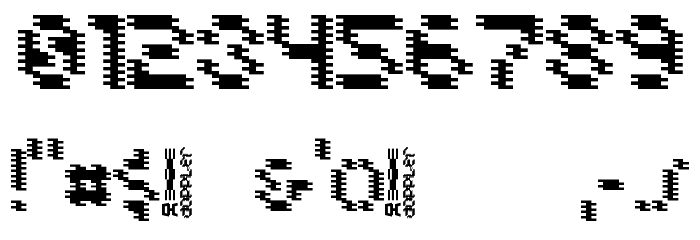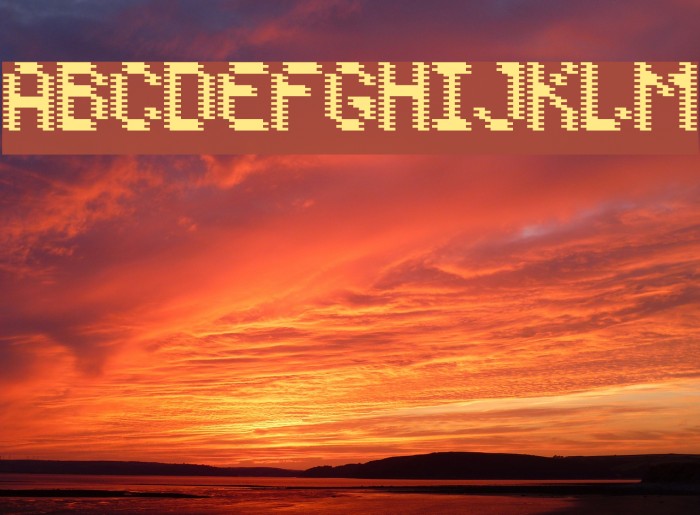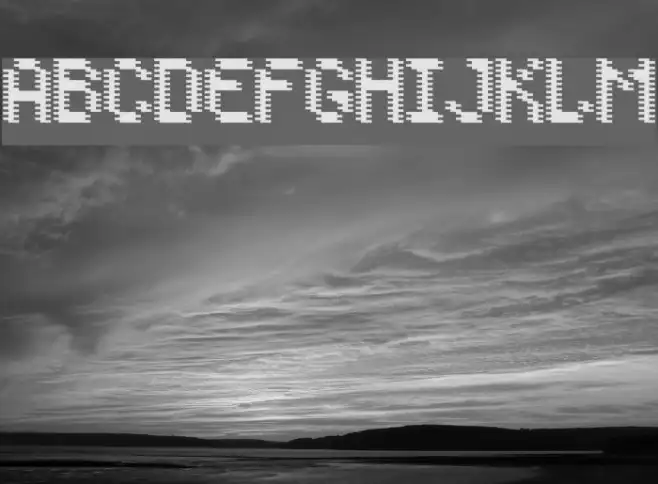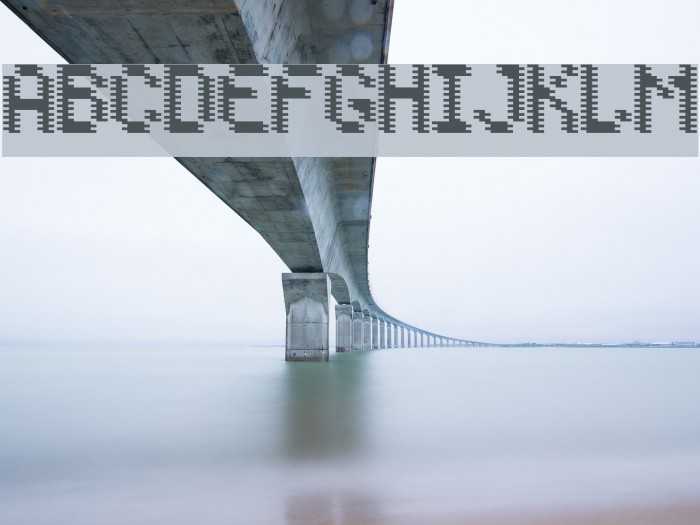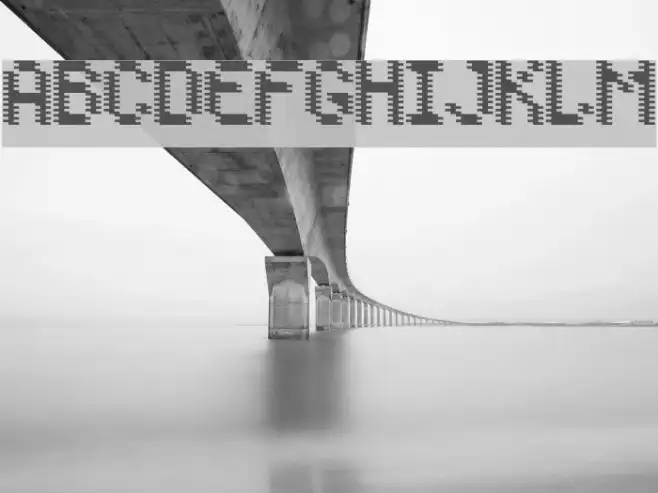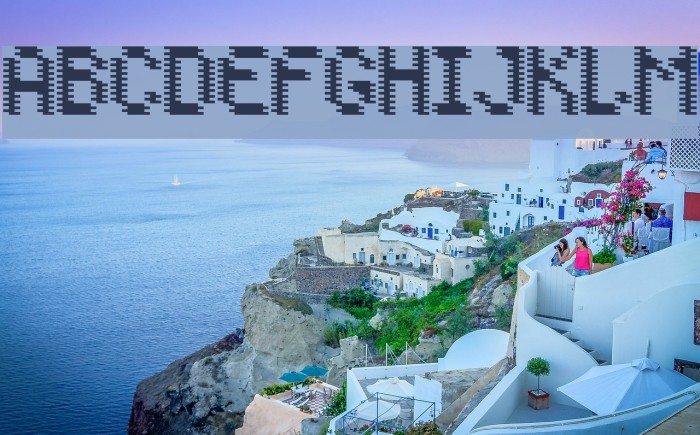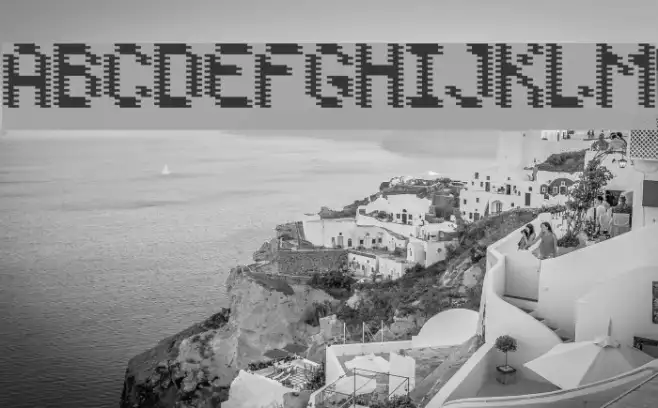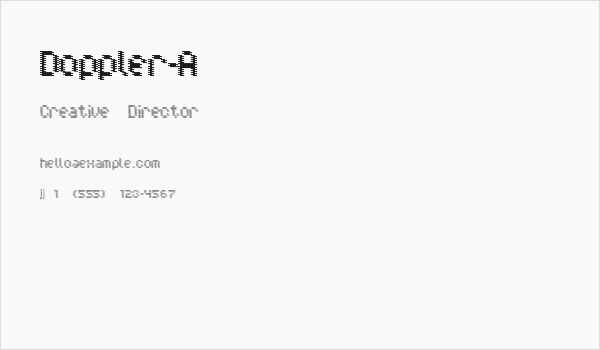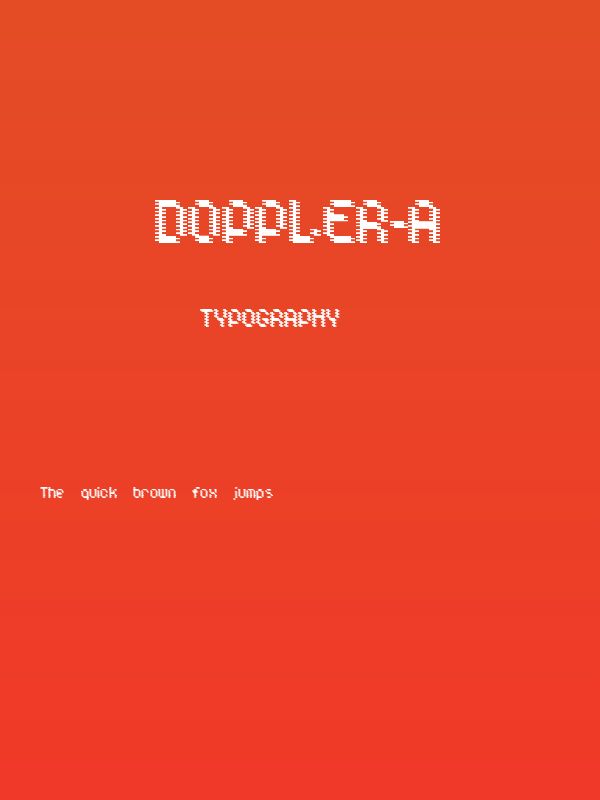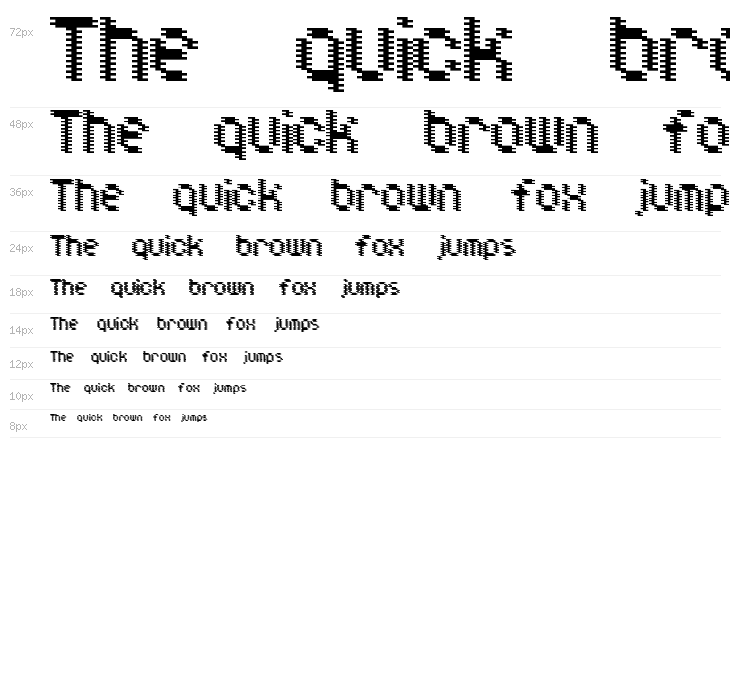
Doppler-A Font
Doppler-A Description
This font features a distinctive pixelated style reminiscent of early digital displays or retro video games. Each character is composed of a series of horizontal lines that create a unique, blocky appearance. The uppercase and lowercase letters maintain a consistent design, with the uppercase being slightly taller and more prominent. Numbers and special characters follow the same pixelated theme, ensuring uniformity across all glyphs. The overall aesthetic is bold and eye-catching, making it ideal for projects that require a vintage or digital feel.